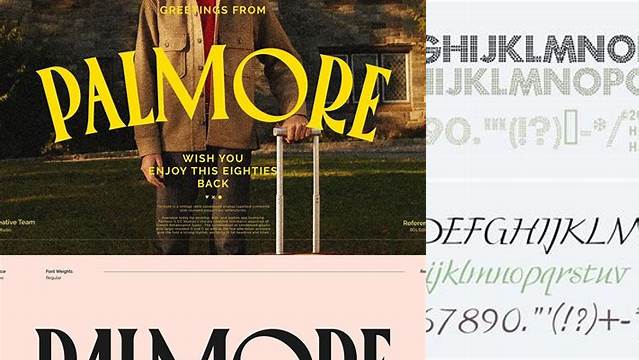
Palmore Fortuna Font: A Deep Dive into its Aesthetics and Appeal
Okay, so what's the buzz about the Palmore Fortuna font? First off, it's a serif font, which means it has those little decorative strokes, called serifs, at the end of each letter. Think of it as the font's personality – elegant, classic, and often associated with a sense of sophistication. The Palmore Fortuna font takes these characteristics and adds its own unique flair. It's known for its clean lines, balanced proportions, and readability, making it a great choice for various design projects. Its timeless design makes it suitable for both traditional and contemporary applications. When you look at it, you'll notice the attention to detail, with each curve and stroke carefully crafted. It's a font that exudes both style and functionality. This combination makes it stand out from the crowd. The font's inherent elegance means it can elevate any project. It also offers a certain level of versatility. Whether you're designing a logo, a website, or a print publication, the Palmore Fortuna font can adapt to your needs. Its subtle nuances make it a great choice. That’s why it is popular among designers. Its versatility and its inherent aesthetic appeal are a great combination.
The Unique Characteristics that Define the Palmore Fortuna Font
One of the most striking features of the Palmore Fortuna font is its inherent elegance. The letterforms are meticulously designed with a focus on balance and harmony. This gives the font a refined appearance, suitable for projects that demand sophistication. The serifs, those tiny strokes at the end of the letters, are subtly crafted. They enhance the font's overall elegance. These details show the care taken in its design. The font also offers excellent legibility. Each letter is distinct, ensuring that the text remains readable even at smaller sizes. This feature makes it a practical choice for long-form content. The design of the Palmore Fortuna font is also flexible. It works well across different media, whether it is print, or digital. The font's versatility makes it a great asset for designers. Its adaptability makes it a favorite for different project types. The designers have succeeded in crafting a font that balances elegance with practicality. This is why the Palmore Fortuna font stands out. The attention to detail is remarkable, making it a great option for projects that require a touch of class. The font's clean lines and balanced proportions give it a timeless quality. This also means that it won't go out of style anytime soon. Overall, the Palmore Fortuna font is a great choice for anyone seeking a font that is both aesthetically pleasing and highly functional. It is a versatile and elegant choice for any designer's toolkit.